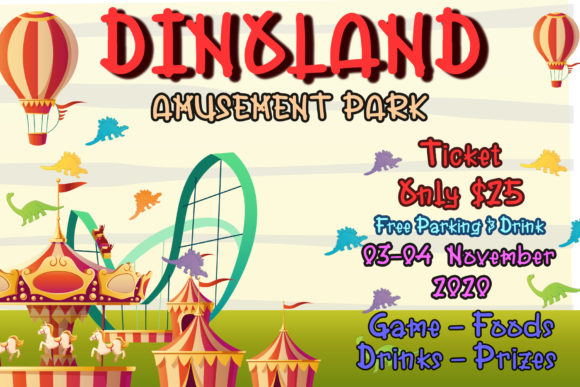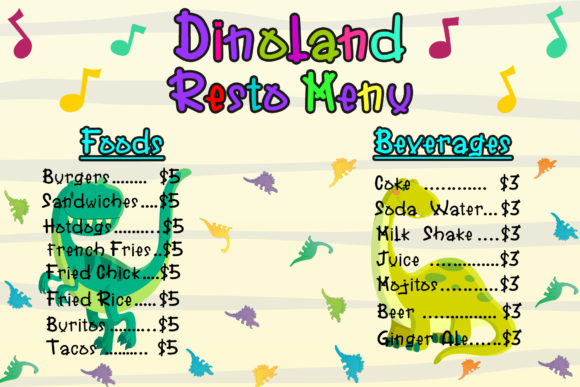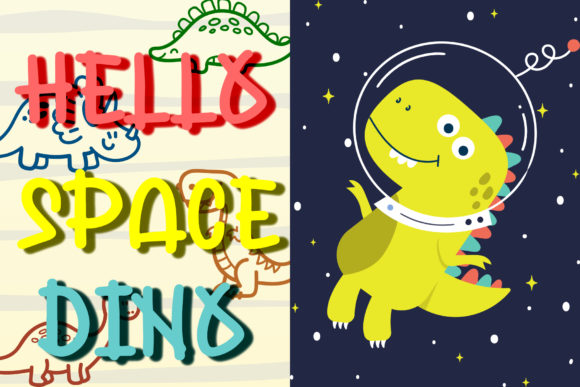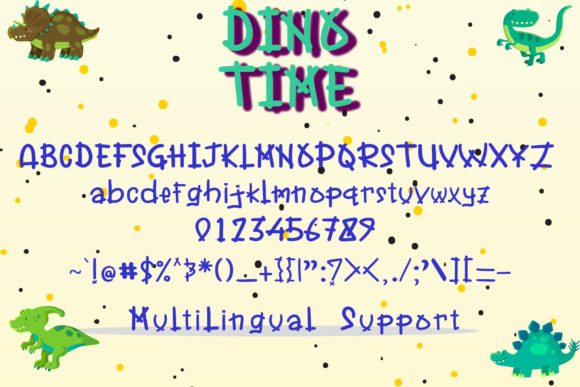
Dino Time Font: The Perfect Choice for Kids’ Projects and Designs
Are you looking for a font that can add a touch of playfulness and authenticity to your designs? Look no further than the Dino Time Font! This cute and colorful display font is perfect for any children’s activity or school project. In this article, we’ll explore the features and benefits of the Dino Time Font and how it can make your designs come alive.
What is Dino Time Font?
Dino Time Font is a chunky lettered font that is designed to bring a sense of fun and playfulness to your designs. Its bold and colorful letters are perfect for catching the attention of kids and making your designs stand out. Whether you’re working on a children’s book, a school project, or a craft, the Dino Time Font is the perfect choice.
Key Features of Dino Time Font
- Cute and Colorful: The Dino Time Font features bright and vibrant colors that are sure to appeal to kids.
- Chunky Lettering: The font’s chunky lettering makes it easy to read and adds a touch of playfulness to your designs.
- Playful and Authentic: The font’s playful and authentic style makes it perfect for kids’ projects and designs.
Benefits of Using Dino Time Font
So why should you choose the Dino Time Font for your designs? Here are just a few benefits of using this amazing font:
- Adds a Touch of Fun: The Dino Time Font adds a touch of fun and playfulness to your designs, making them more engaging and appealing to kids.
- Perfect for Kids’ Projects: The font’s playful and authentic style makes it perfect for kids’ projects and designs, including children’s books, school projects, and crafts.
- Easily Customizable: The Dino Time Font is easily customizable, allowing you to adjust the size, color, and style to fit your design needs.
- Great for Crafters: The font is also great for crafters who want to add a personal touch to their projects, such as handmade cards, scrapbooking, and DIY crafts.
Design Ideas Using Dino Time Font
The Dino Time Font is versatile and can be used in a variety of design projects. Here are some design ideas to get you started:
- Children’s Books: Use the Dino Time Font to create engaging and fun children’s books that kids will love.
- School Projects: Use the font to create eye-catching posters, presentations, and reports that will make your school projects stand out.
- Crafts: Use the font to add a personal touch to your handmade cards, scrapbooking, and DIY crafts.
- Party Invitations: Use the font to create fun and playful party invitations that kids will love.
| Font Name | Dino Time Font |
| Author | boogaletter |
In conclusion, the Dino Time Font is a cute and colorful display font that is perfect for any children’s activity or school project. Its playful and authentic style makes it a great choice for designers and crafters who want to add a touch of fun to their designs. With its easy-to-use features and versatility, the Dino Time Font is a must-have for any designer or crafter working with kids.